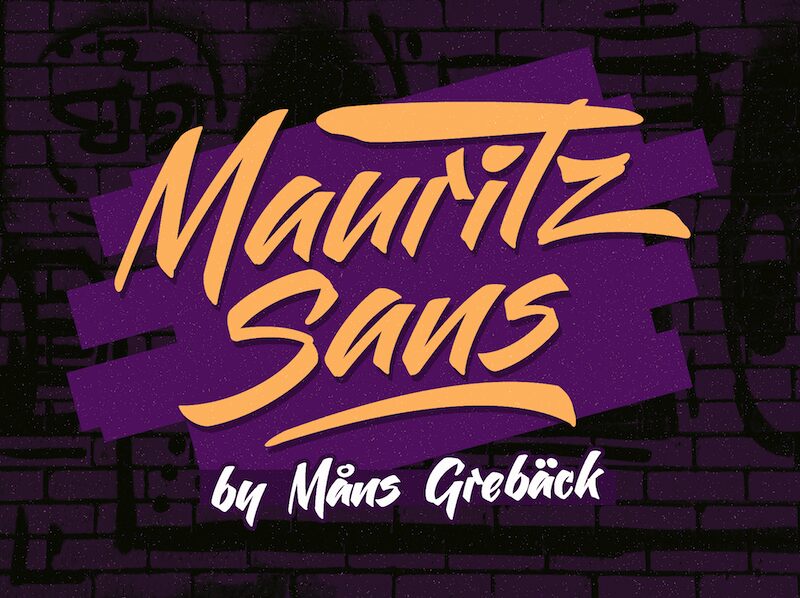
Mauritz Sans font is a brush typeface designed by Mans Greback.
Use underscore _ anywhere in a word to make a swash.
Example: Sign_ature
Use multiple underscores for different swashes.
Example: Supe______rcars